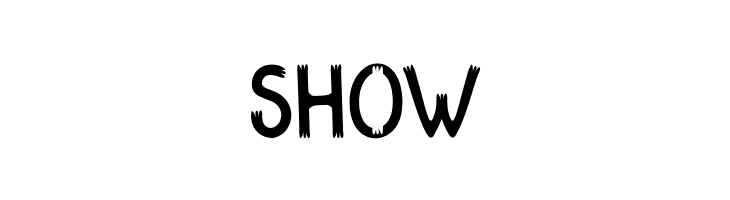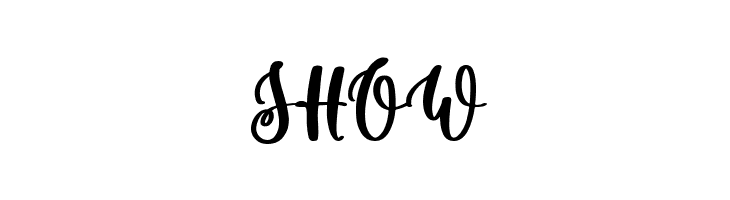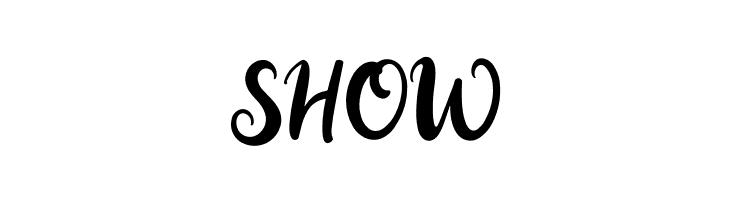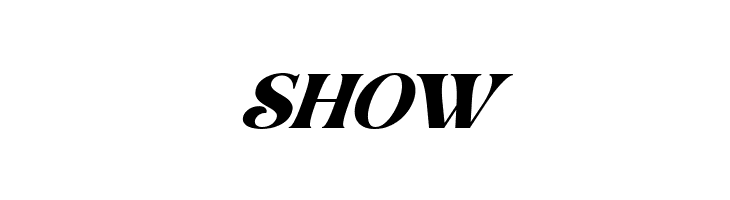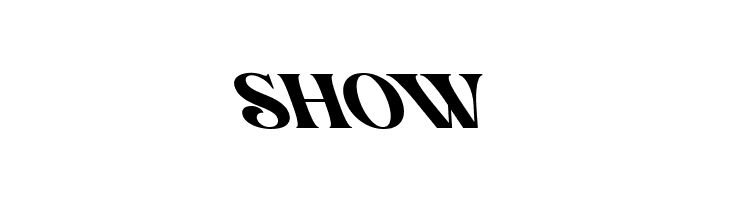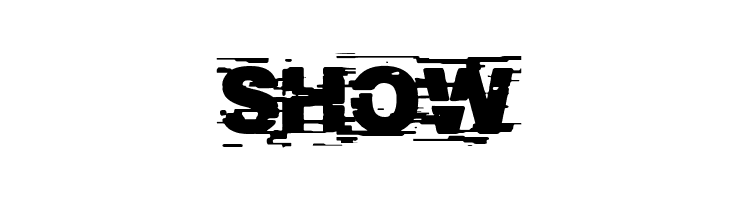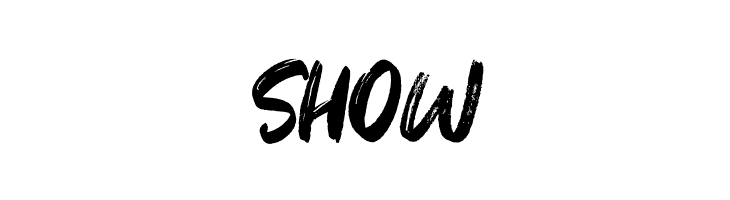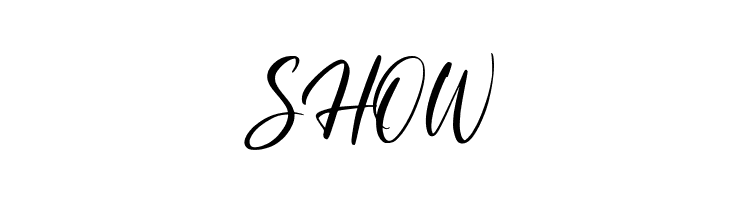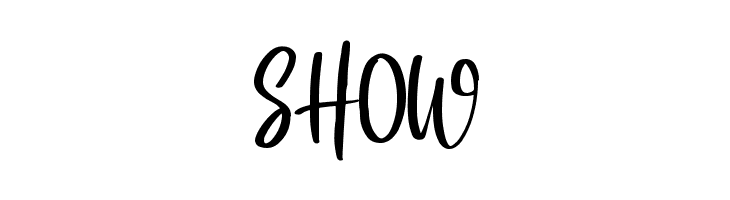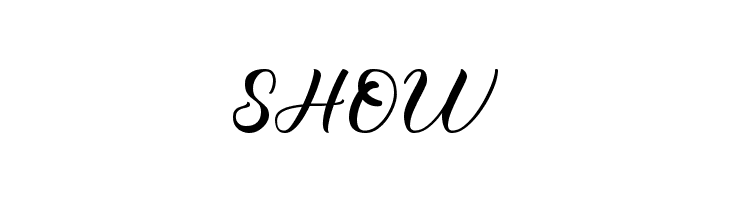
Playful, abstract stick-figure font with expressive faces.
A playful and whimsical font with flowing curves and unique letterforms.
A lively, expressive handwritten font with dynamic strokes and playful flair.
A modern, elegant script font with flowing, cursive strokes.
A playful, handwritten-style font with tall, narrow characters and rounded edges.
A playful and elegant script font with flowing, cursive letters.
A playful, jagged font with a hand-drawn, crocodile scale-like texture.
A playful, hand-drawn font with tall, narrow letters and a whimsical style.
A playful, bold, and hand-drawn style font with a whimsical touch.
A playful and expressive handwritten font with dynamic cursive letterforms.
A playful, cursive font with a whimsical and elegant style.
An artistic and elegant font with unique flair and smooth curves.
A bold, snow-capped decorative font perfect for festive designs.
A playful, flowing script font with elegant, cursive letterforms.
A playful, summer-themed font with beach motifs and a casual, handwritten style.
A lively, handwritten script font with bold, connected letters.
A dynamic brush script font with an energetic, hand-drawn style.
A decorative font featuring macabre and medical-themed illustrations.
A bold, high-contrast serif font with dramatic flair.
A bold, high-contrast italic font with elegant serifs and dynamic movement.
A bold, oblique serif font with sharp angles and strong presence.
A bold, distressed font with a rugged, vintage appearance.
A bold, glitch-inspired font with a distressed, fragmented appearance.
A cursive, handwritten font with elegant, flowing strokes.
A bold, hand-drawn font with a playful and expressive style.
A bold, modern font with geometric lines and strong presence.
An elegant script font with ornate, flowing letterforms and intricate flourishes.
A bold, hexagonal font with a futuristic and geometric design.
A modern, elegant handwritten font with flowing, interconnected letterforms.
A graceful and elegant script font with fluid, interconnected strokes.
A bold, expressive handwritten font with dynamic brush strokes.
A bold, brush-style font with dynamic, hand-painted strokes.
A bold, futuristic font with geometric and high-contrast design.
A bold, expressive script font with a modern, handwritten style.